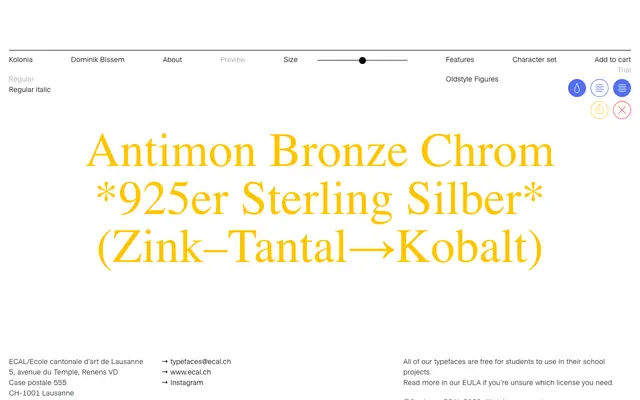
Kolonia
A revival of Ernst Schneidler's 1923 Deutsch-Römisch, retaining its calligraphic oddities and low contrast for contemporary text use.
Dominik Bissem's Kolonia updates Schneidler's eccentric Deutsch-Römisch for modern text applications, preserving its peculiar letterforms while moderating contrast for improved readability. Details like the dancing g, the dagger-shaped seven and an idiosyncratic question mark carry through the calligraphic personality of the 1923 original. The result sits in the territory between historical revival and contemporary text face, with enough character to avoid anonymity.
A revival of Schneidler's 1923 Deutsch-Römisch, Kolonia retains the calligraphic eccentricities and low contrast of the original text face, placing it within the humanist or calligraphic serif tradition.